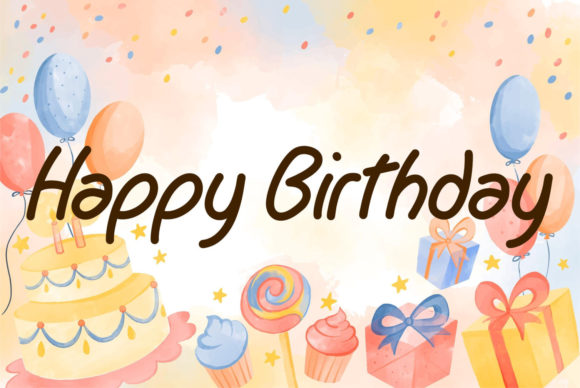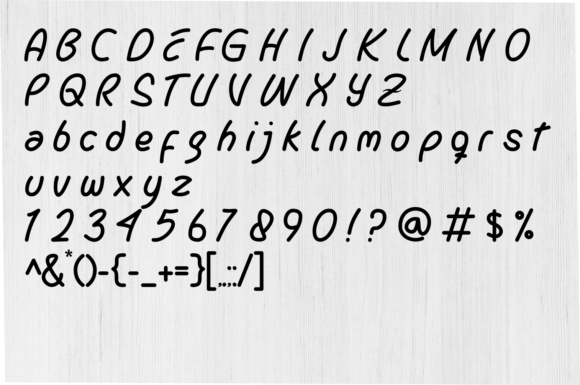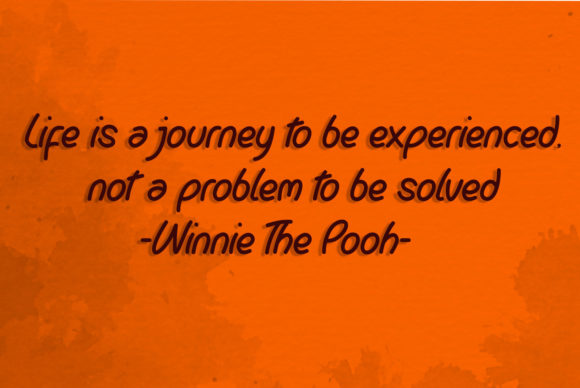
Introduction to Bangun Pagi Font
Bangun Pagi is a lovely and delicate script font that exudes elegance and class.
This font was particularly crafted for those who need a beautiful and refreshing look to their designs .
Key Features of Bangun Pagi Font
Why Choose Bangun Pagi Font?
Bangun Pagi Font offers exceptional quality and versatility, making it a valuable addition to your design toolkit. Whether you’re creating for personal projects or commercial use, Bangun Pagi Font delivers professional results.